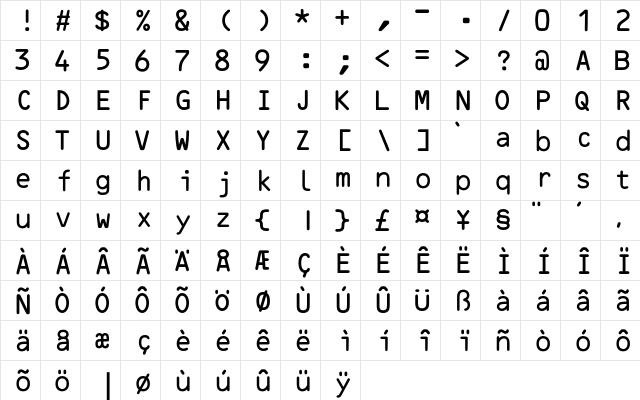
OCR B BQ Regular Font Preview
OCR B BQ Regular
Design Context for OCR B BQ Typeface
OCR B BQ offers clean, dependable letterforms without strong stylistic allegiance, making it a practical choice for designers who need flexibility.